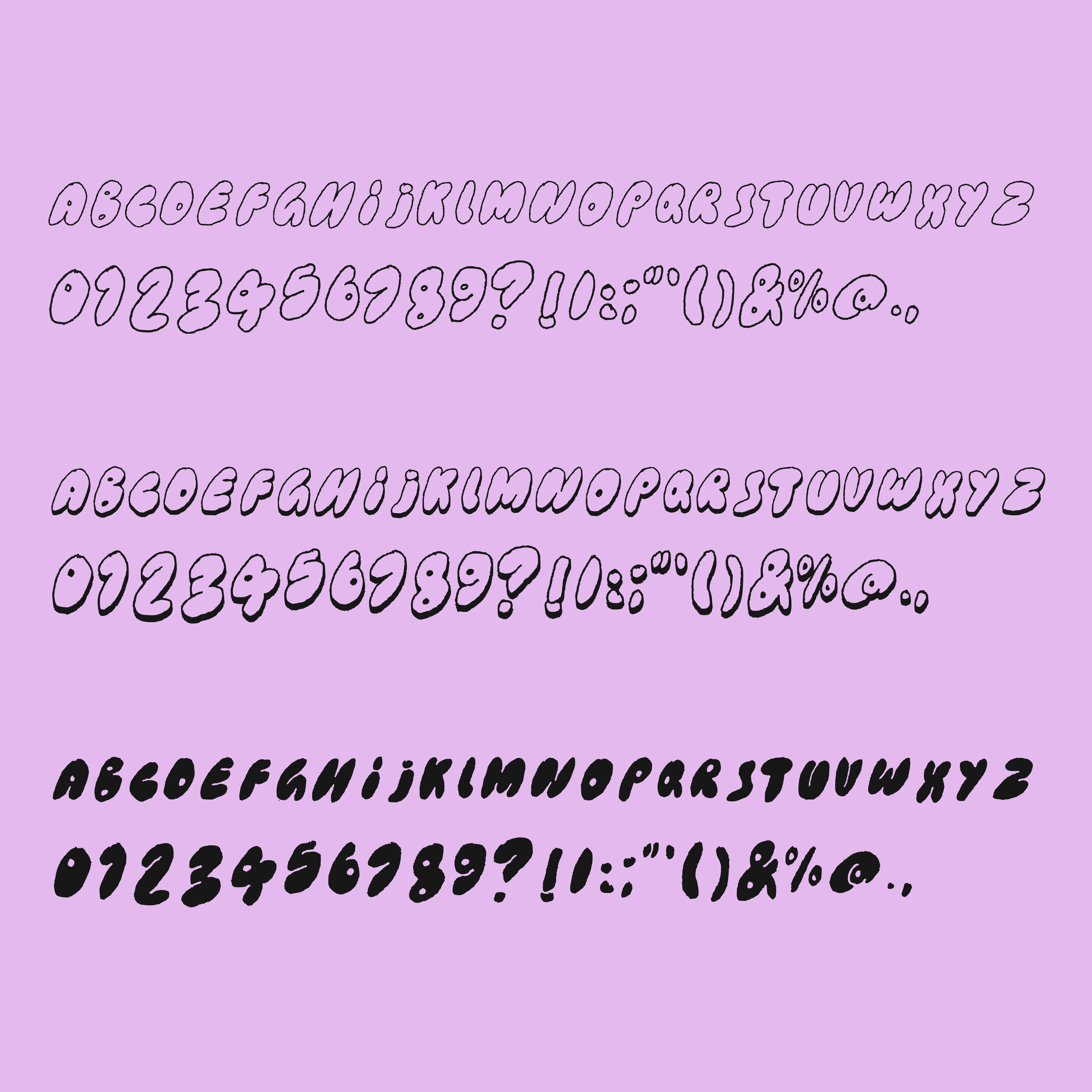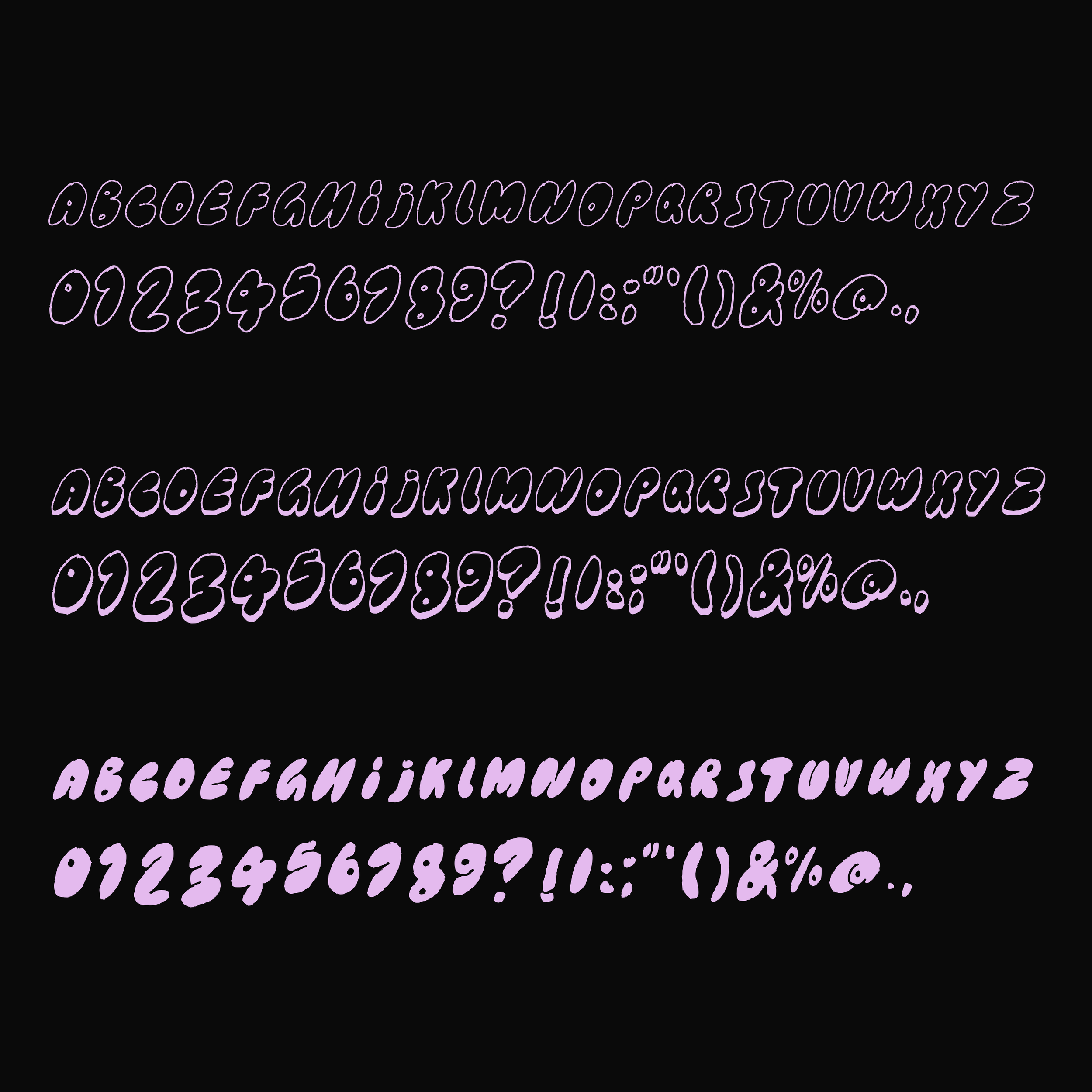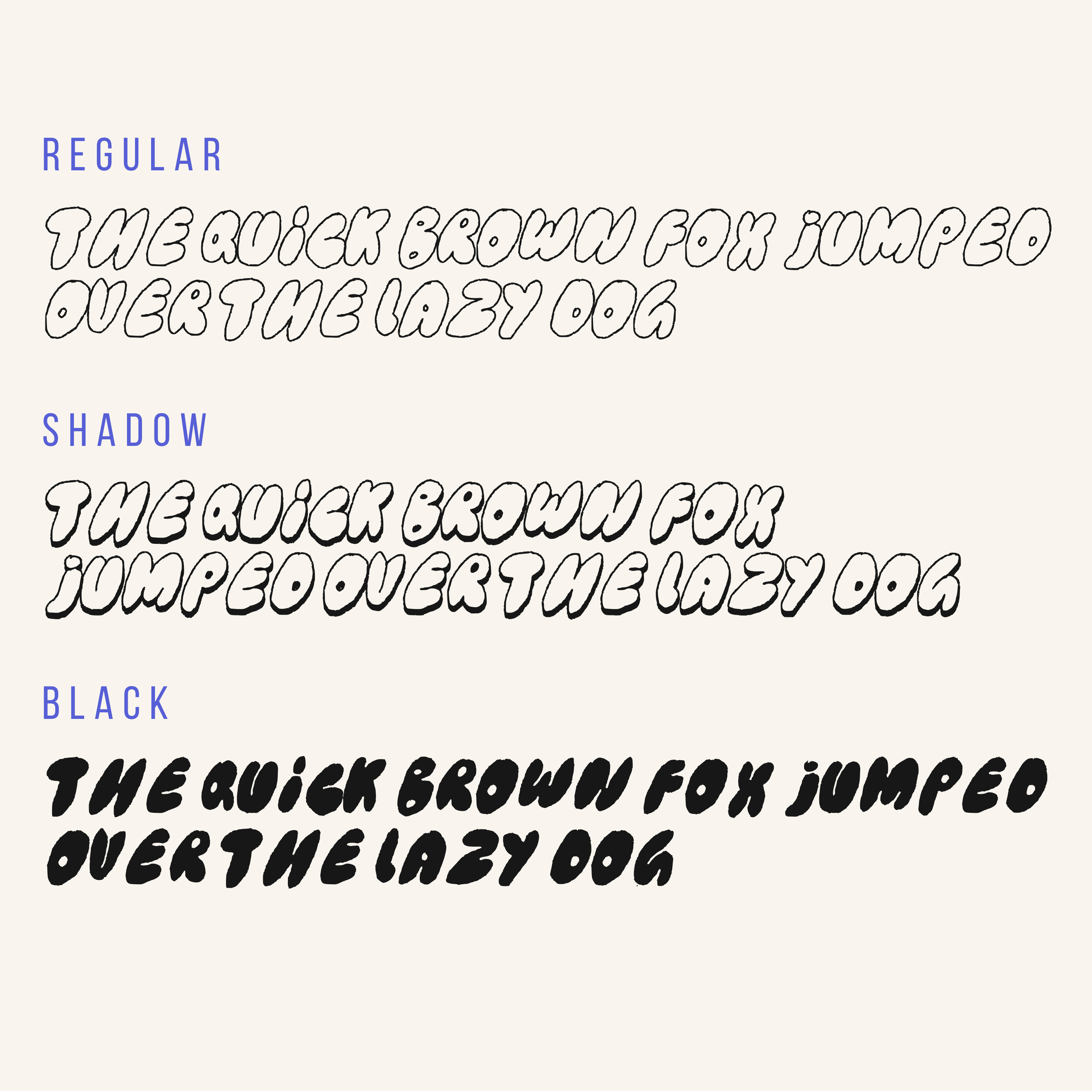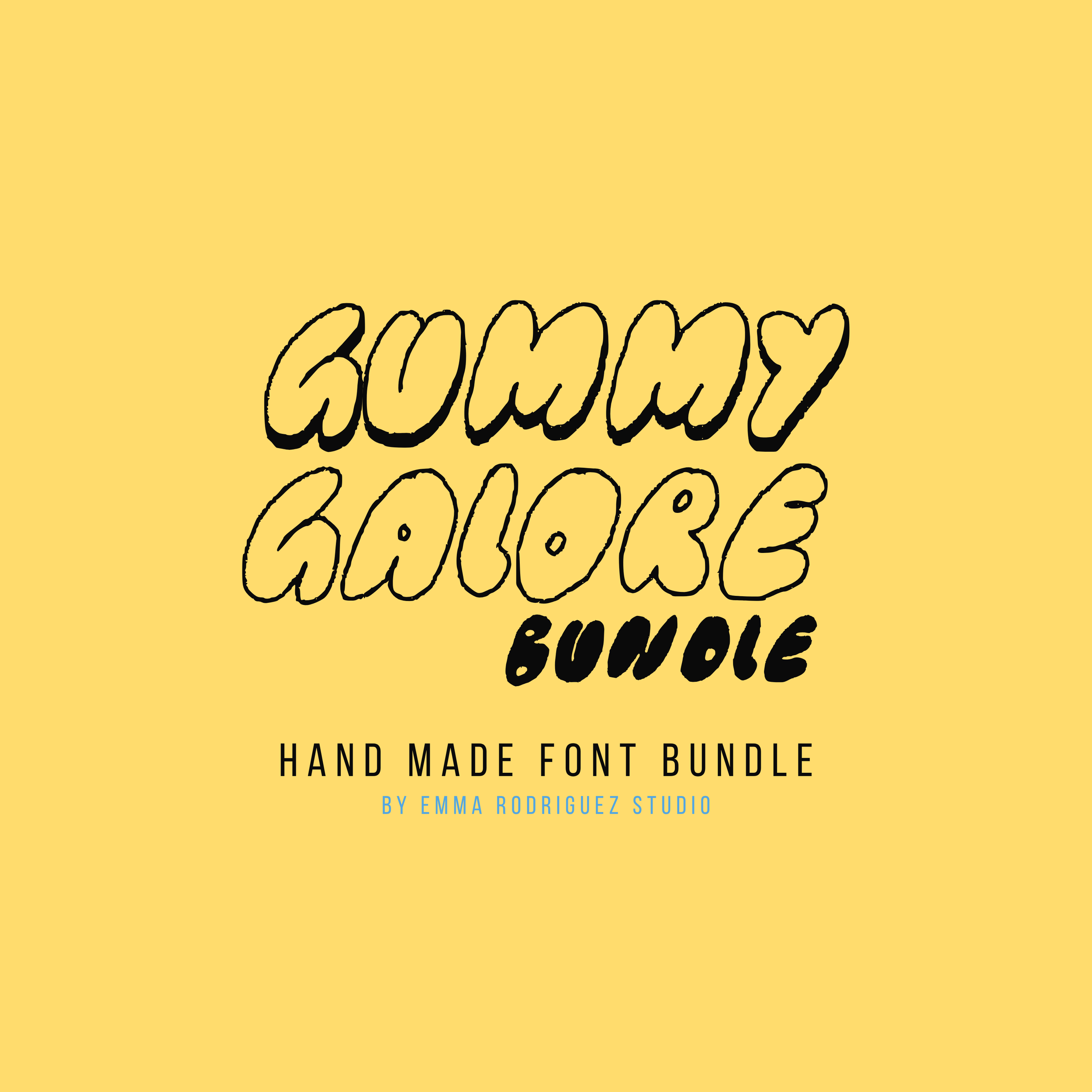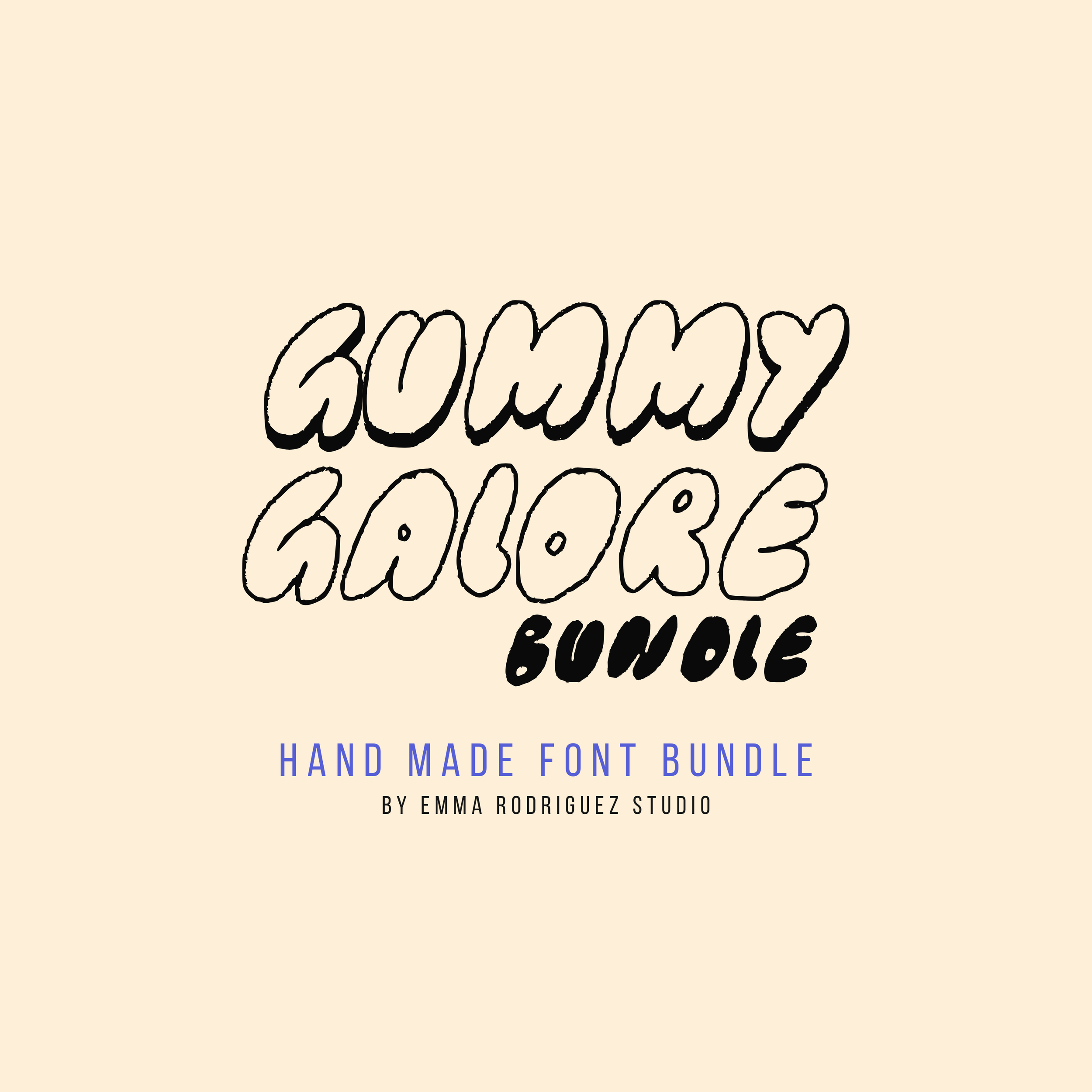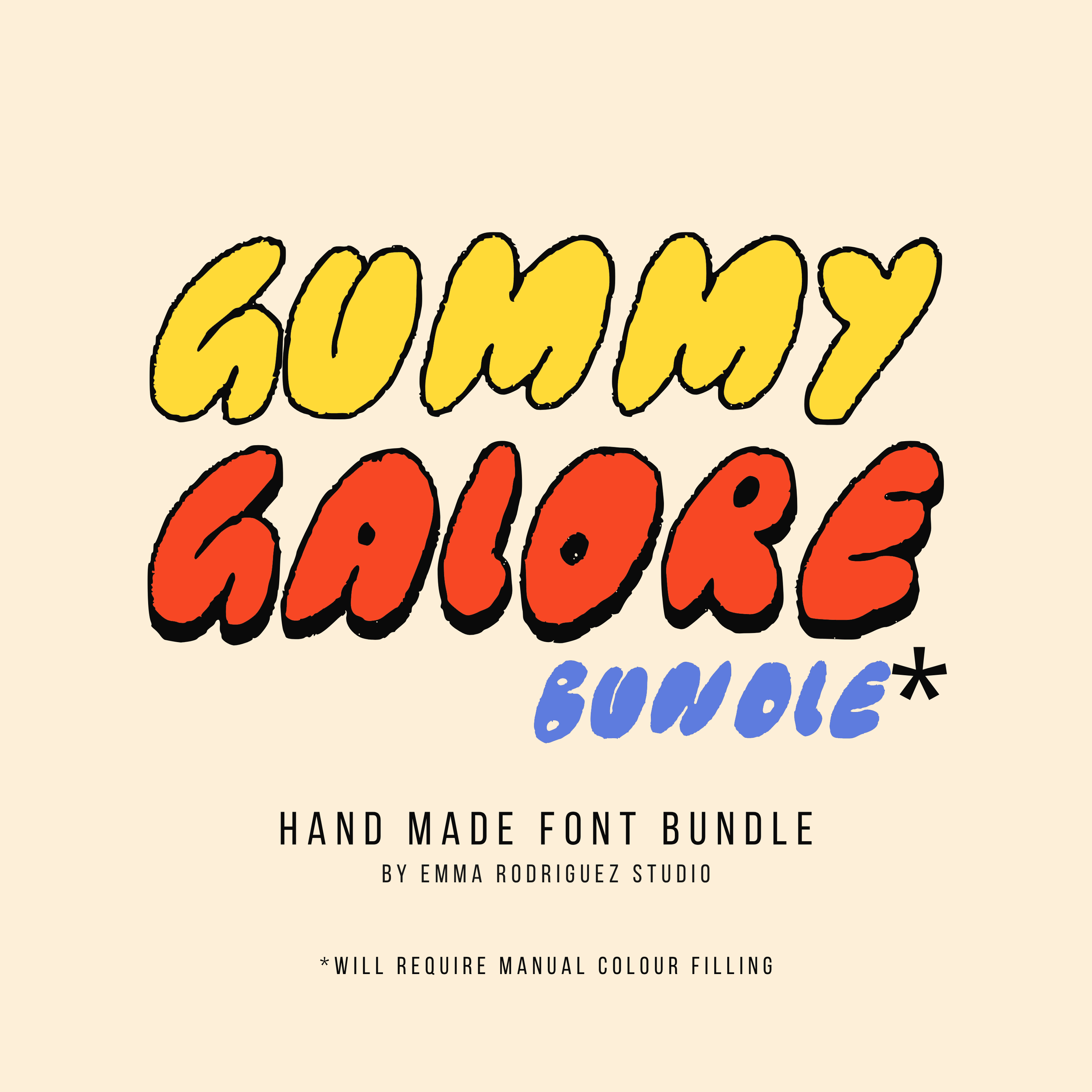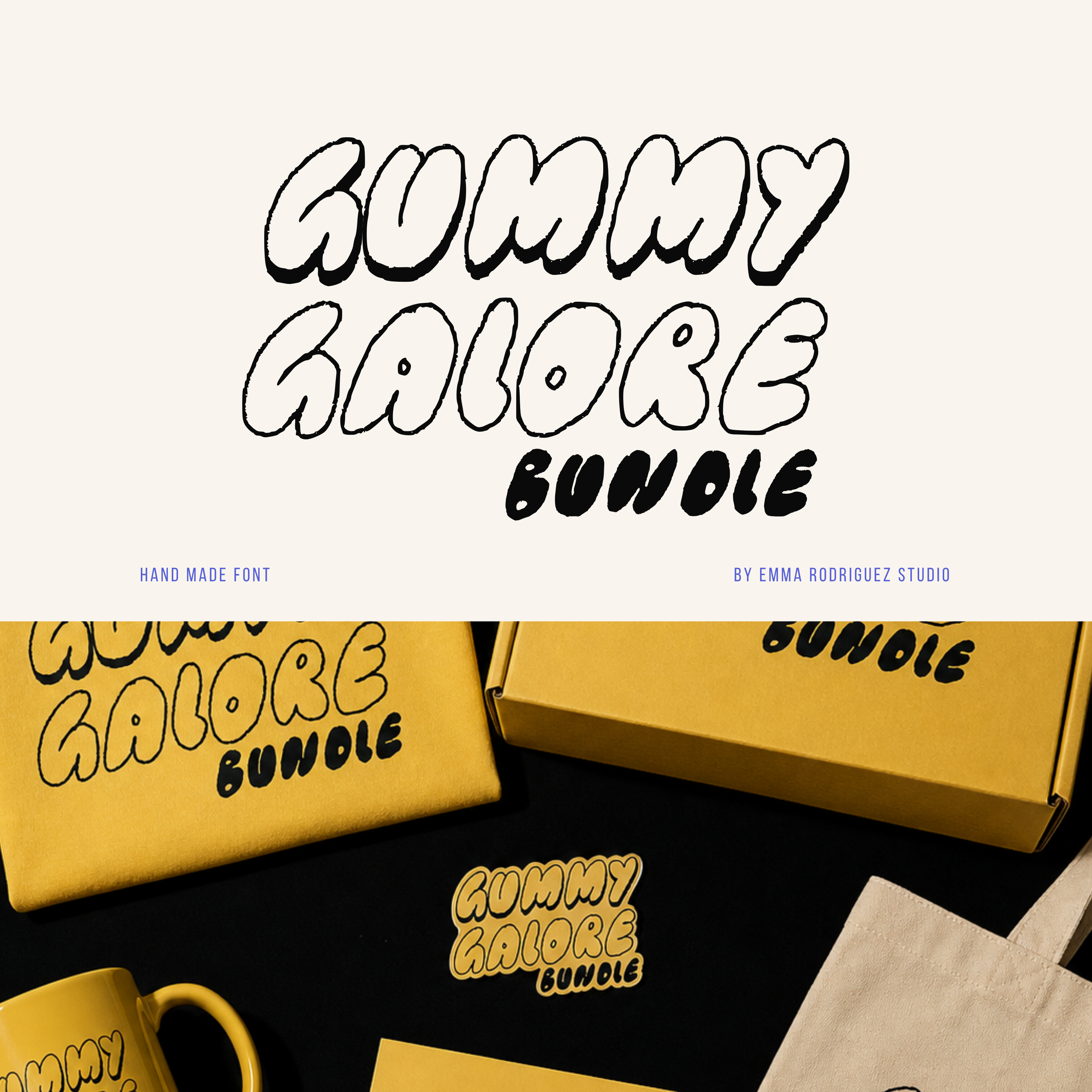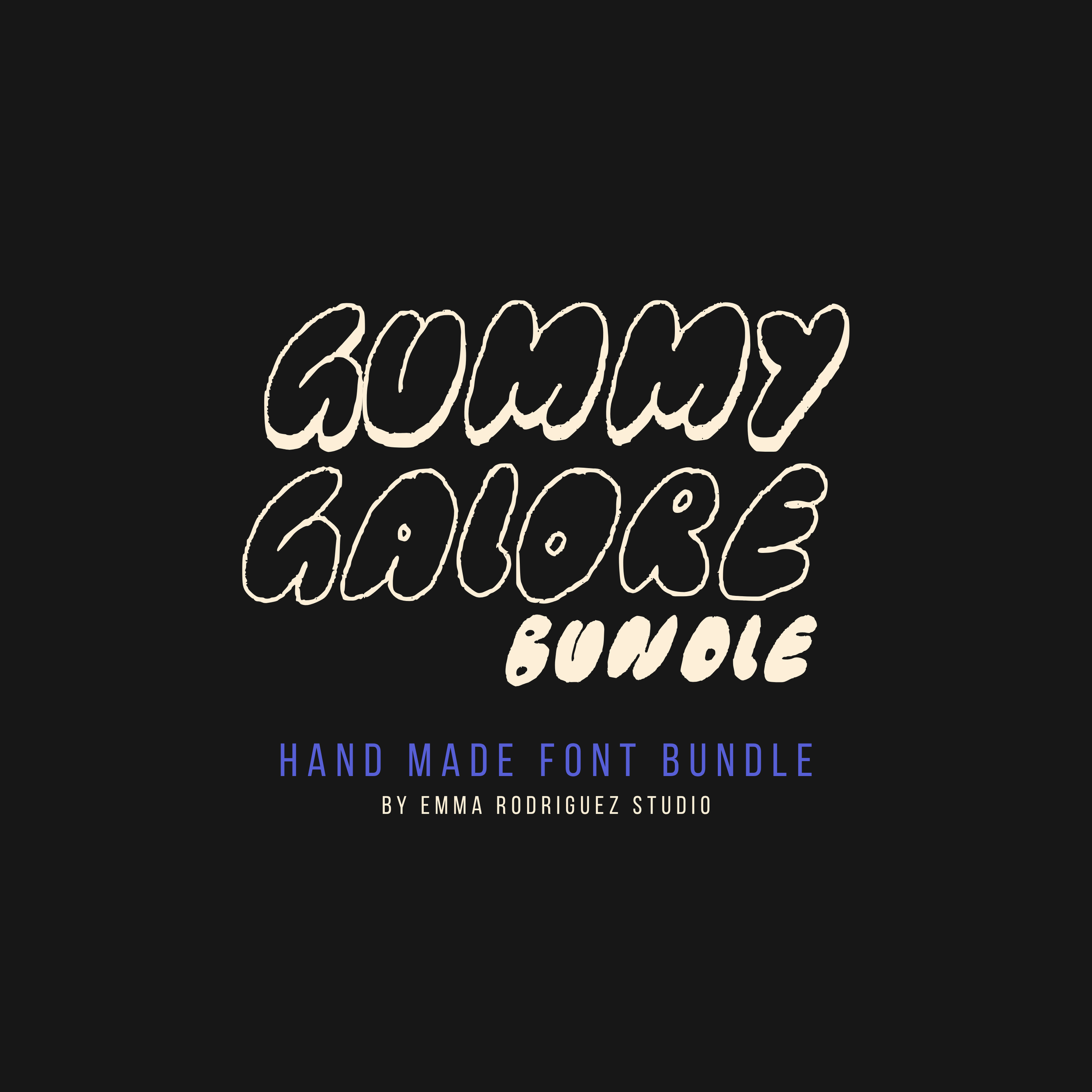
Gummy Galore Font Bundle - Chunky Bubble Type Pack
Meet Gummy Galore, a bundle of 3. A chunky, soft edged display font that leans fully into bold, playful weight. It takes simple rounded letterforms and pushes them into thick, inflated shapes that feel heavy, bouncy, and slightly off balance in the best way.
Still clean. Still readable. Just thicker, rounder, and way more fun.
This bundle includes three styles of the same font, giving you more flexibility without needing to search for pairings. Use the outline, shadow, and solid versions together or separately to create layered, dynamic designs with minimal effort.
This typeface is built with smooth curves and a soft, almost squishy presence. The letters are intentionally irregular, creating a loose rhythm that adds movement and personality across every word. Nothing is perfectly straight on purpose. That slight imbalance is what gives it its charm.
This font is designed to add personality and character to your work, with expressive letterforms that stand out across branding, posters, packaging, and digital design. Ideal for designers, artists, and content creators looking for something more playful and less uniform than standard typefaces.
• Uppercase letters
• Numbers and basic punctuation
Intentional quirks are part of the design. Irregular baselines, varied spacing, and uneven kerning are built in and form part of the overall style across fonts by Emma Rodriguez Studio. These details are not faults but a core feature of the font’s personality.